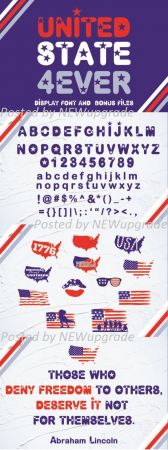
DesignOptimal - United State 4 Ever Font
United State 4 Ever is a beautiful display font. Use it to brighten up all your upcoming 4th of July crafting projects!